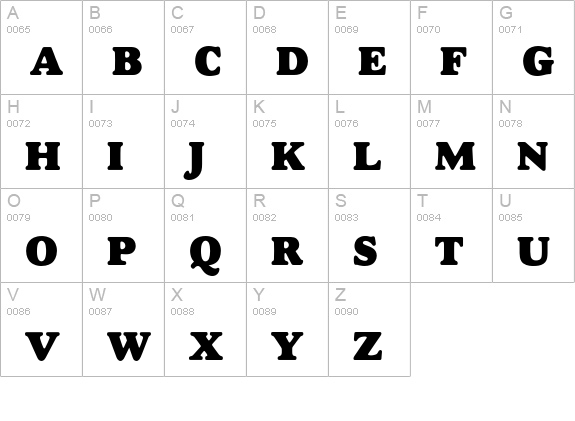
Goudy Heavy Face is a heavy, high-impact variant in the Goudy typeface family \xE2\x80\x94 well suited to high-impact headlines, posters, and display advertising.
Goudy Heavy Face font is a timeless and classic typeface that exudes elegance and sophistication. Its bold and striking design makes it perfect for headlines, titles, and other attention-grabbing elements in print and digital media. The strong, sturdy strokes of this font command attention and convey a sense of authority and confidence. What sets Goudy Heavy Face font apart is its versatility - it can be used for a wide range of design projects, from vintage-inspired posters to modern branding materials. Its distinctive character adds a touch of sophistication to any design it is used in. The best part about Goudy Heavy Face font is that it is available for free download at FontsMarket.com. This means that designers and creatives can access this stunning typeface without any cost, making it accessible to a wide range of users. Whether you're working on a personal project or a professional design, Goudy Heavy Face font is sure to elevate your work and make a lasting impression.